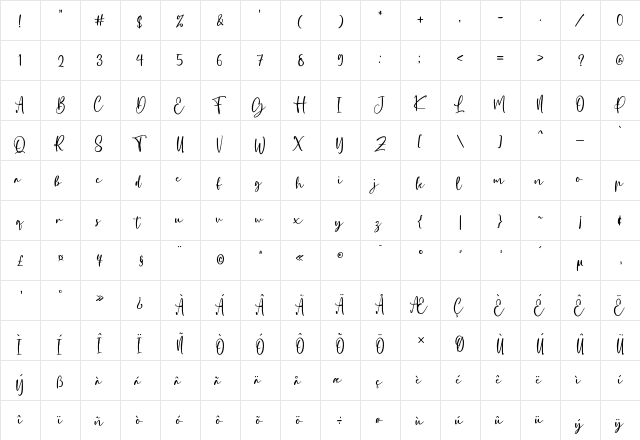
Mallorist Regular
Design Context for Mallorist Typeface
Mallorist is a composed and adaptable typeface that performs quietly and consistently across a wide range of design contexts.